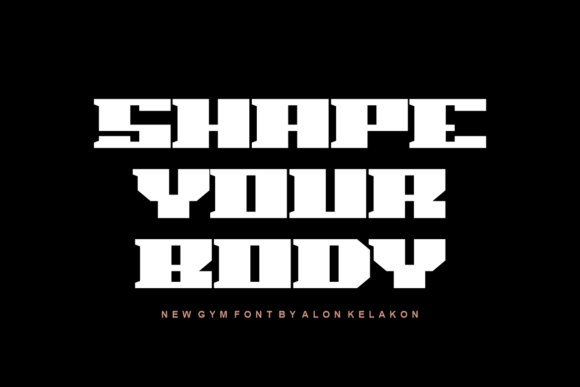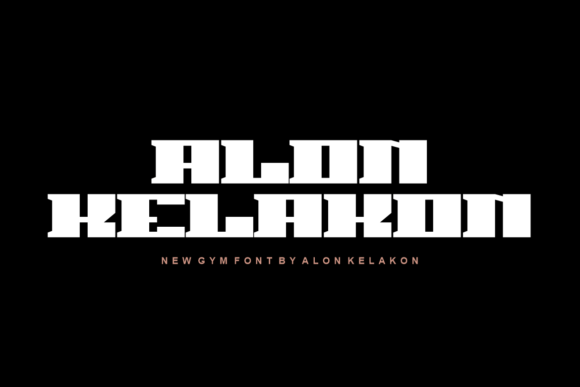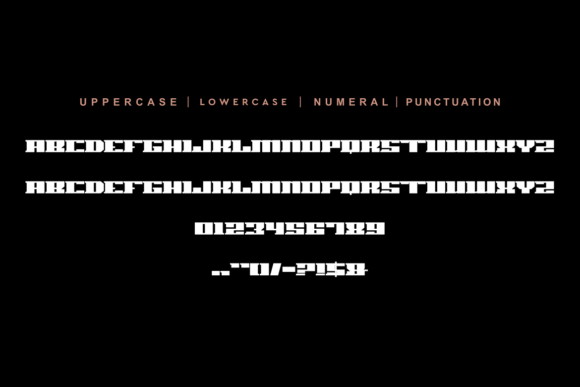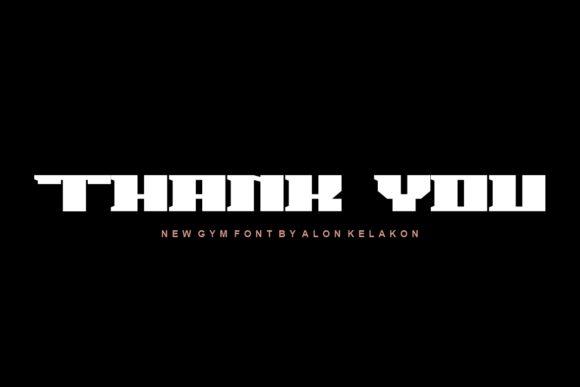
Unleash the Power of Body Muscle Font: Elevate Your Designs with a Bold and Vibrant Touch
Are you looking for a font that can add a robust and powerful feel to your designs? Look no further than Body Muscle Font. This bold and vibrant font is specifically designed to draw attention and highlight any project that requires a strong and sporty aesthetic. In this article, we’ll explore the features and benefits of Body Muscle Font, and how it can elevate your designs to the next level.
What is Body Muscle Font?
Body Muscle Font is a carefully crafted font that exudes strength and energy. Its bold and muscular design makes it perfect for sports-related projects, such as team logos, jerseys, and league branding. However, its versatility extends far beyond sports, making it suitable for a wide range of applications, including movie and documentary titles, film posters, game covers, and book titles.
Key Features of Body Muscle Font
- Bold and Robust Design: Body Muscle Font features a bold and robust design that commands attention and adds a powerful touch to your designs.
- Vibrant and Energetic: The font’s vibrant and energetic feel makes it perfect for sports-inspired designs and projects that require a dynamic aesthetic.
- Highly Versatile: Body Muscle Font can be used for a wide range of projects, including logos, posters, headlines, titles, and more.
- Easily Readable: Despite its bold design, Body Muscle Font is easily readable, making it perfect for use in titles, headings, and short paragraphs.
Use Cases for Body Muscle Font
Body Muscle Font is an incredibly versatile font that can be used in a variety of contexts. Here are some examples of use cases where Body Muscle Font can make a significant impact:
- Sports Design: Use Body Muscle Font to create bold and eye-catching logos, jerseys, and branding materials for sports teams and leagues.
- Movie and Documentary Titles: Add a powerful and energetic touch to your movie and documentary titles with Body Muscle Font.
- Film Posters: Create striking film posters that grab attention with Body Muscle Font.
- Game Covers: Use Body Muscle Font to create bold and dynamic game covers that stand out on store shelves.
- Book Titles: Add a bold and vibrant touch to your book titles and covers with Body Muscle Font.
- Headlines and Titles: Use Body Muscle Font to create bold and attention-grabbing headlines and titles for your blog posts, articles, and marketing materials.
Benefits of Using Body Muscle Font
So, why should you choose Body Muscle Font for your next design project? Here are some benefits of using this powerful font:
- Adds a Powerful Touch: Body Muscle Font adds a bold and powerful touch to your designs, making them more engaging and attention-grabbing.
- Increases Versatility: With its highly versatile design, Body Muscle Font can be used for a wide range of projects and applications.
- Enhances Readability: Despite its bold design, Body Muscle Font is easily readable, making it perfect for use in titles, headings, and short paragraphs.
- Saves Time: With Body Muscle Font, you can create professional-looking designs in a fraction of the time it would take to design from scratch.
In conclusion, Body Muscle Font is a robust and powerful font that can add a bold and vibrant touch to your designs. Its versatility, readability, and attention-grabbing design make it perfect for a wide range of applications, from sports design to movie titles and film posters. Whether you’re a designer, crafter, or DIY enthusiast, Body Muscle Font is an excellent choice for any project that requires a strong and sporty aesthetic.